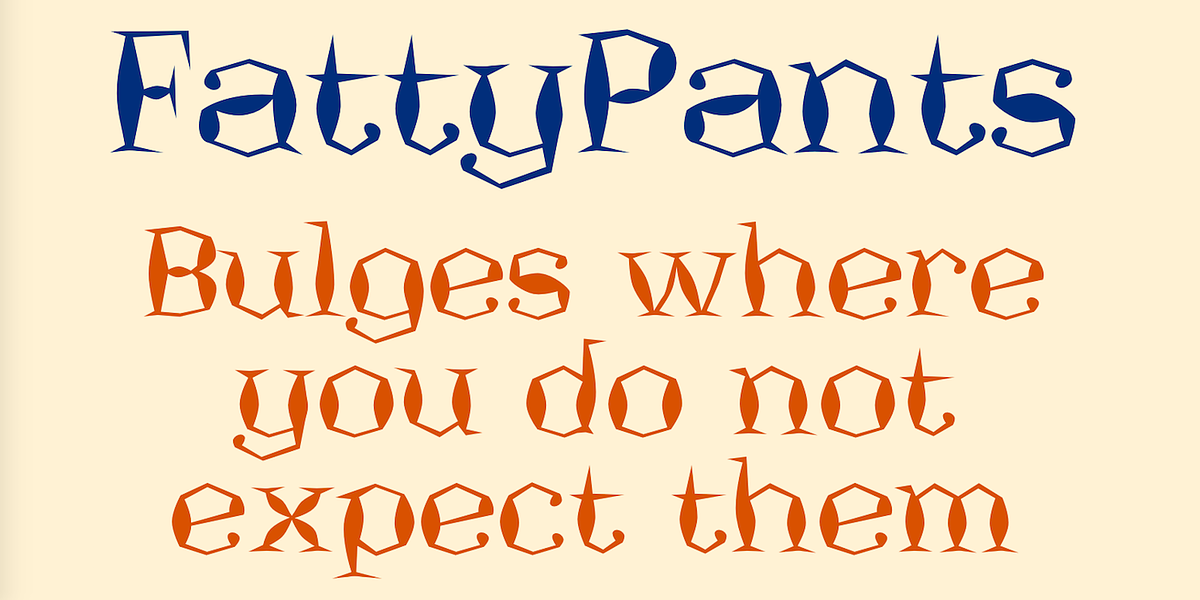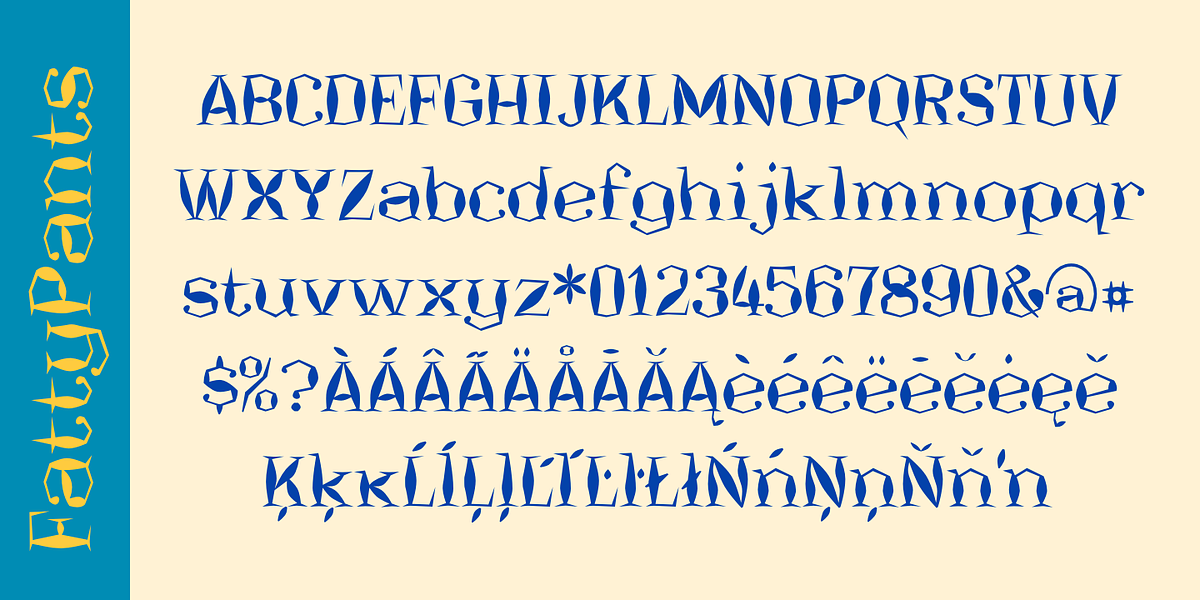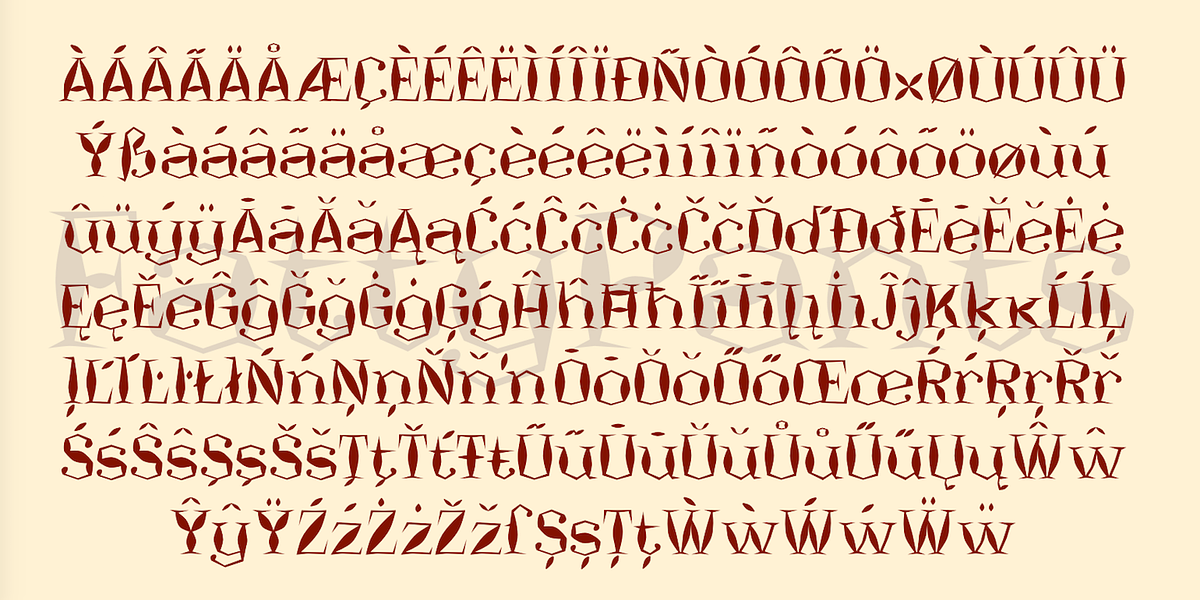
FattyPants
FattyPans is a distinctive display serif font characterized by its unusually shaped serifs. These serifs are both angular and exaggerated, often bulging in unexpected places. This gives the typeface a bizarre and attention-grabbing quality.